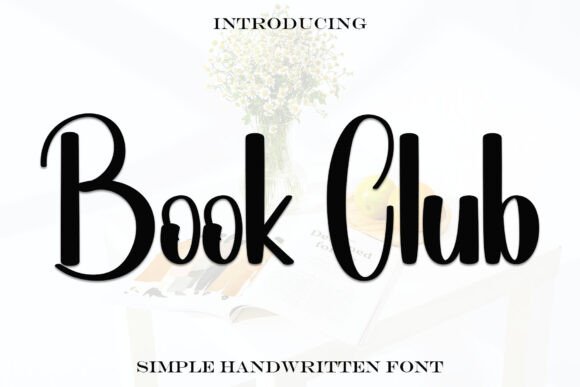
The Perfect Addition to Your Design Arsenal: Book Club Font
I’ll never forget the time I was working on a project for a high-end client, and I just couldn’t seem to find the right font to match their brand aesthetic. The design brief called for something elegant, classy, and sophisticated, but everything I tried seemed to fall flat. That’s when I stumbled upon Book Club, a trendy handwritten font that instantly elevated my design game. In this article, I’ll share my experience with Book Club, its features, and how to make the most of it in your design projects.
A Personal Review of Book Club Font
Book Club is a beautiful, contemporary handwritten font that draws inspiration from timeless classic calligraphy. Here are some things I love about it:
- ✨ Elegant and classy vibe that’s perfect for high-end designs
- ✅ Impeccable form and attention to detail
- 💫 Highly versatile and works well for a variety of design projects, from branding to invitations
- 📚 Supports OpenType features, glyphs, and stylistic alternates for added creativity
While Book Club is an excellent font, it’s not without its quirks. Here are a few things to keep in mind:
- 🤔 Some users may find the font a bit too ornate for certain design projects
- ⚠️ Limited availability of certain glyphs and special characters
The Story Behind Book Club Font
Book Club was designed by a team of typographers who wanted to create a font that would bring a touch of elegance and sophistication to design projects. Inspired by classic calligraphy, they crafted a font that is both timeless and contemporary. The result is a beautiful, handwritten font that is perfect for designers, crafters, and creative hobbyists.
| Font Name | Book Club Font |
| What is Book Club font? | Book Club is a trendy handwritten font with a contemporary atmosphere and impeccable form, inspired by timeless classic calligraphy. |
| What design projects is Book Club suitable for? | Book Club is versatile and works well for a variety of design projects, from branding and logos to invitations and stationery. |
| Is Book Club easy to read? | Yes, Book Club is designed to be elegant and legible, making it perfect for body text and headlines. |